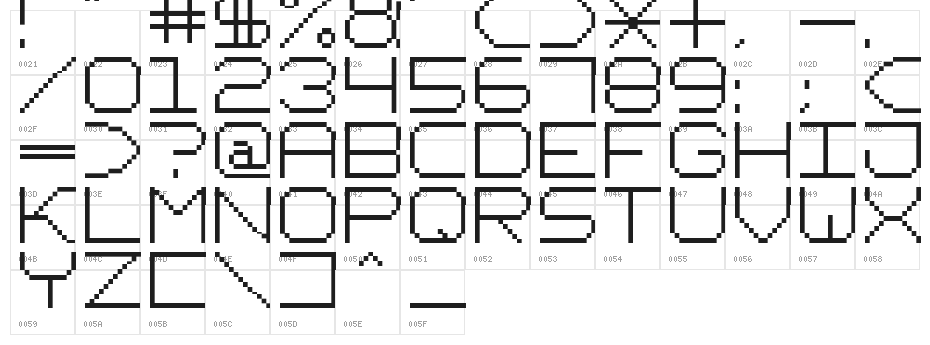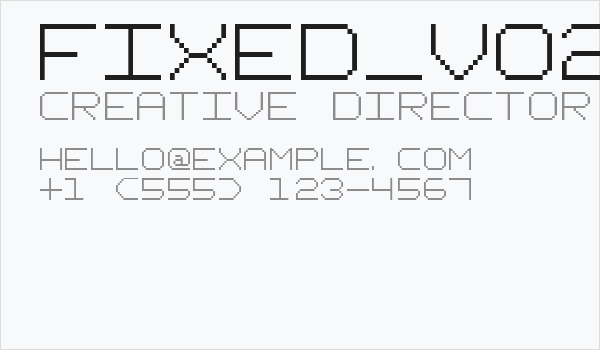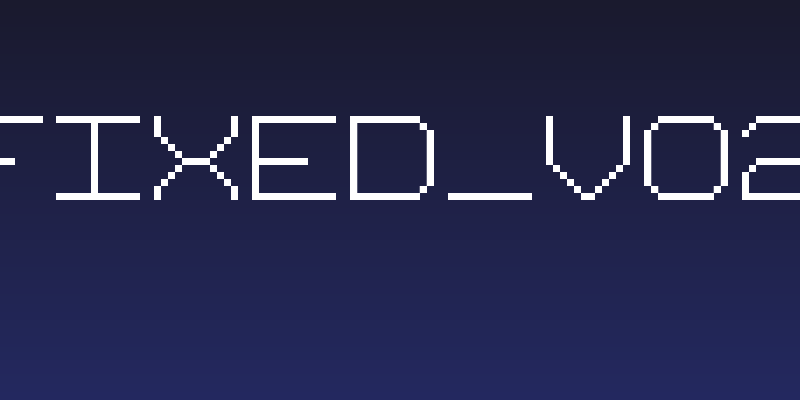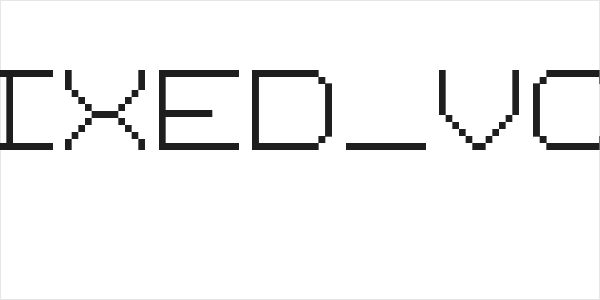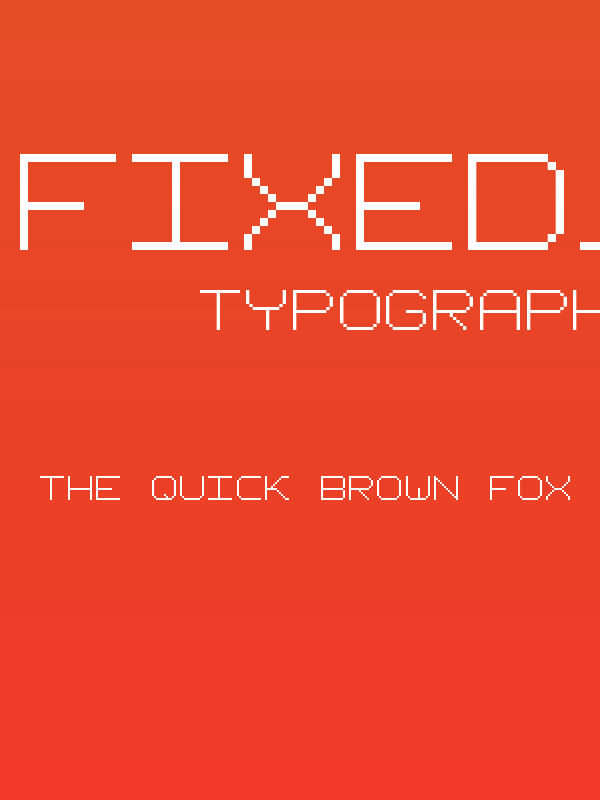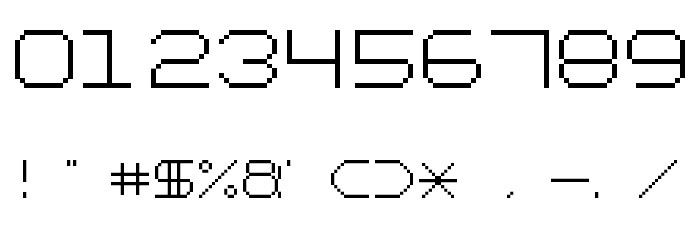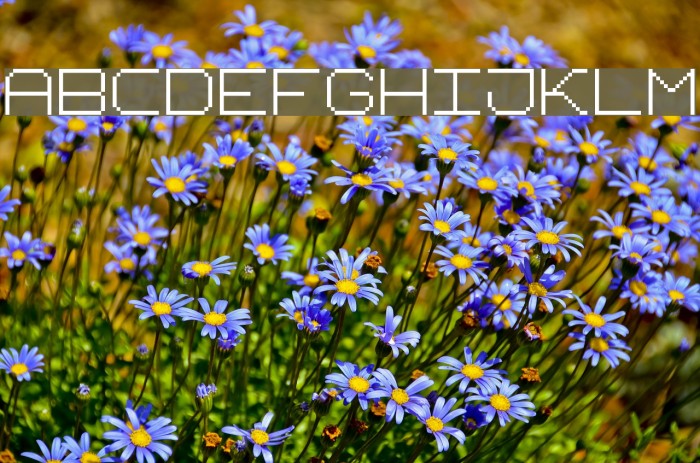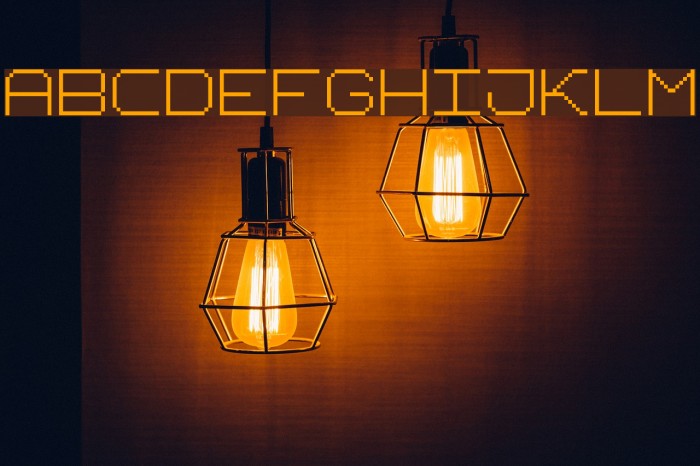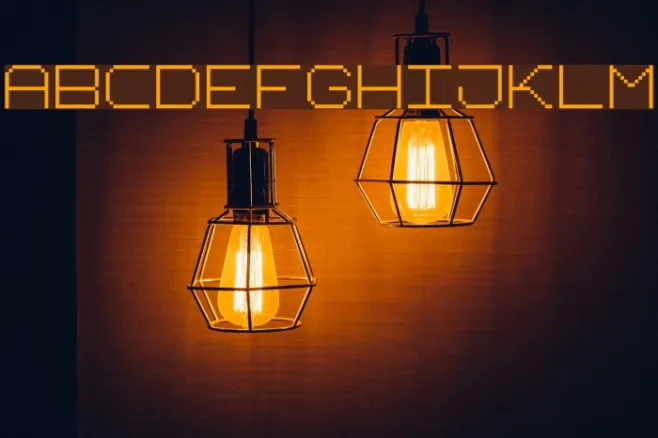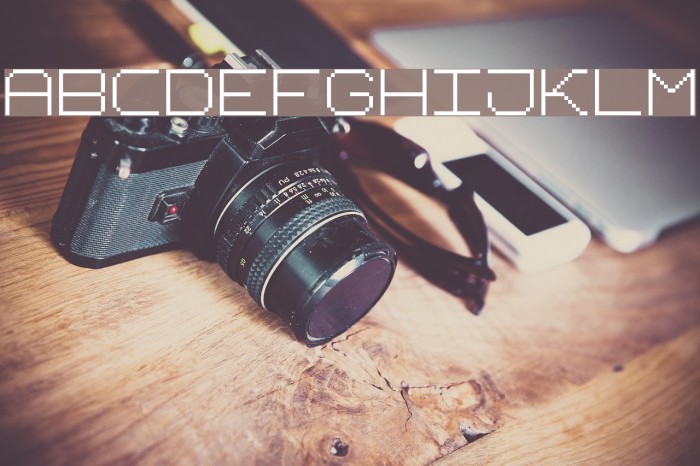
fixed_v02 Font
fixed_v02 Description
This font features a distinct, pixelated style reminiscent of early digital displays and retro video games. Each character is constructed with a grid-like precision, giving it a blocky and geometric appearance. The uniformity in line thickness and spacing creates a cohesive and structured look, ideal for conveying a sense of nostalgia or technological themes. The uppercase and lowercase letters maintain a consistent height, while the numerals and special characters are designed to match the overall aesthetic. This font's unique style makes it stand out, offering a blend of simplicity and retro charm.
| Overall Style | Retro, Digital |
| Use Case | Logos, Headlines, Digital displays |
| Proposed Projects | Ideal for video game design, tech-themed posters, retro digital displays, and any project seeking a nostalgic or technological vibe. |